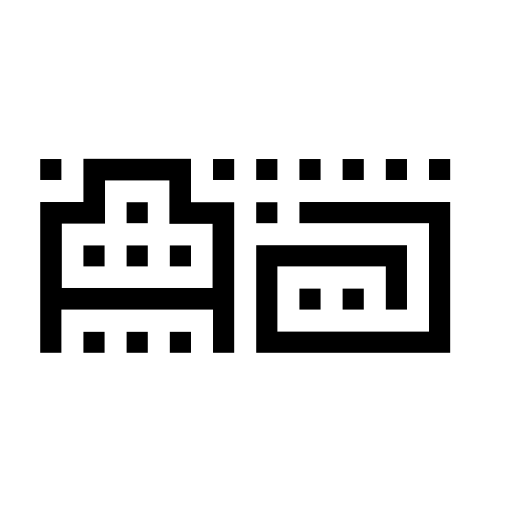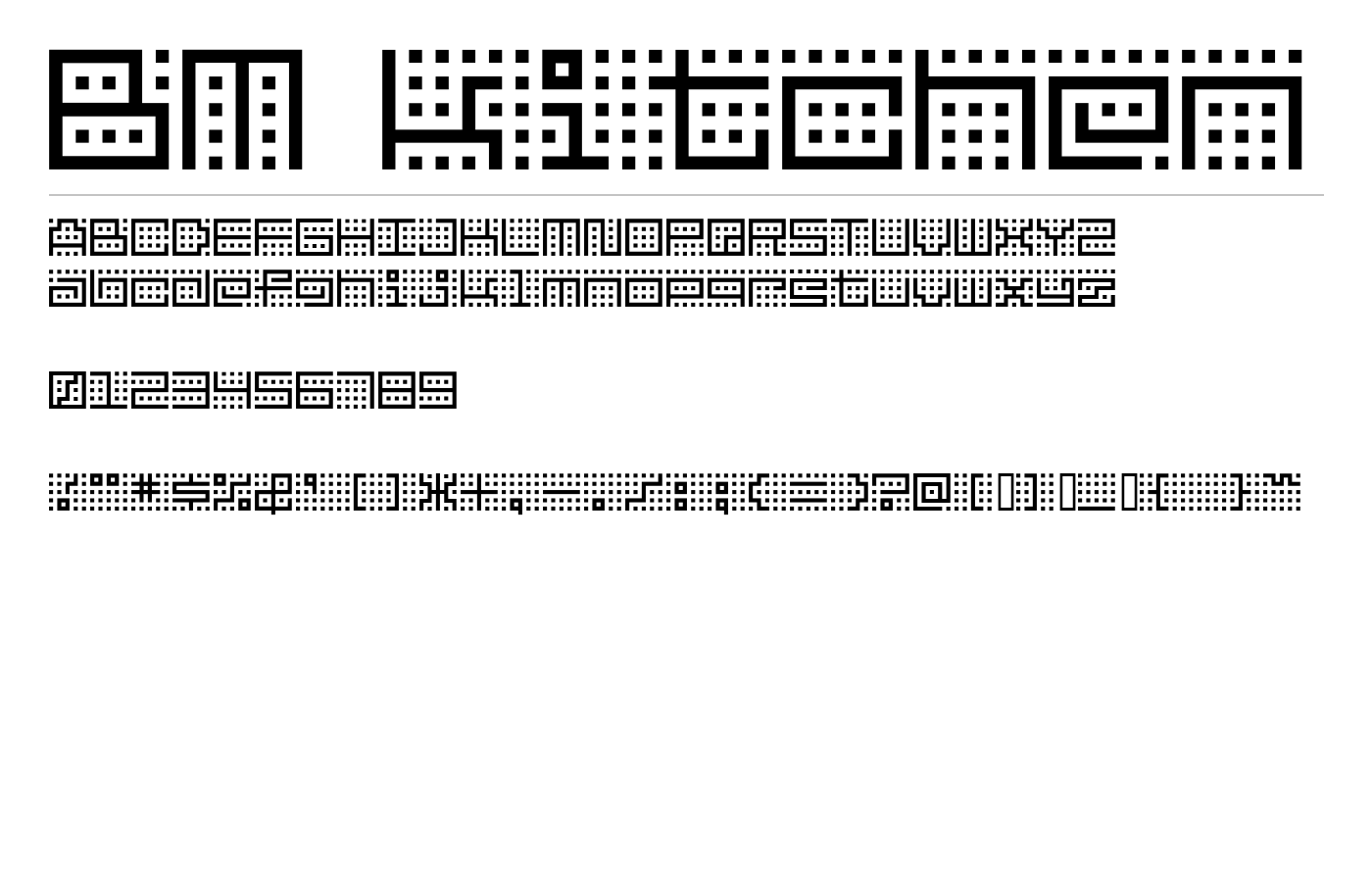
BM Kitchen is a highly geometric, pixel-inspired sans serif font characterized by its blocky and modular letterforms filled with dotted patterns. With a consistent weight, narrow width, and squared shapes, it delivers a futuristic, digital vibe that stands out for artistic or tech-centric projects. This distinctive font works best for eye-catching headlines, branding, or digital media where a bold, retro-modern aesthetic is desired.
BM kitchen Font
About BM kitchen Font